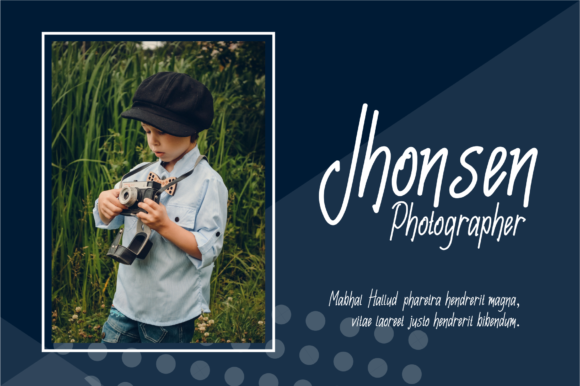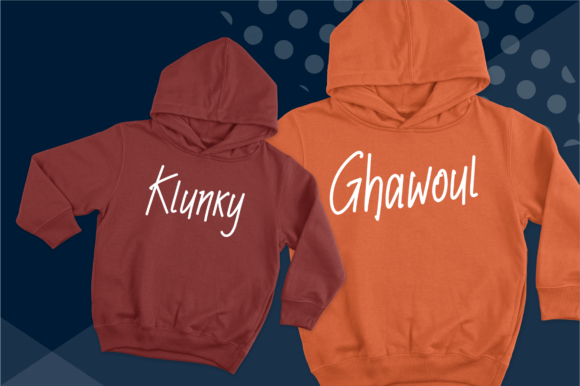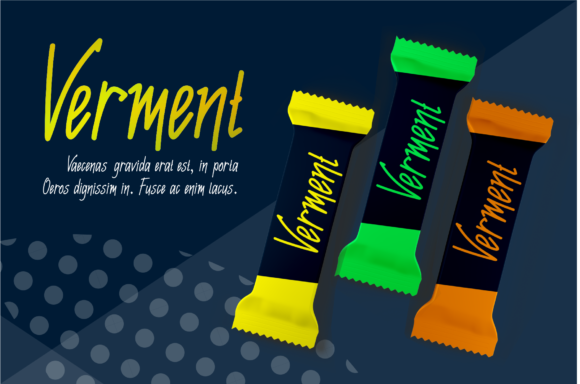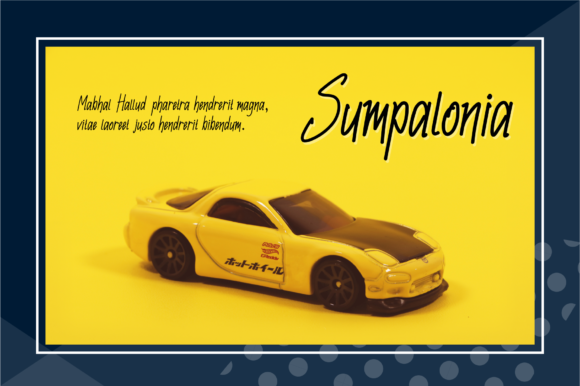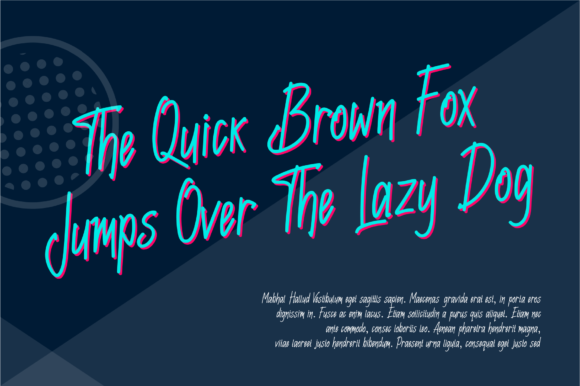
The Perfect Blend of Quirky and Clean: Andeldow Font
Have you ever stared at a blank page, surrounded by scraps of paper, and a million ideas swirling in your head? The creative process can be both exhilarating and overwhelming. For designers, this moment is where the magic happens – and we’re about to reveal a secret ingredient that can take your designs to the next level.
Meet the Andeldow Font, a charming monoline display font that’s equal parts clean and quirky. Its unique character makes it the perfect fit for logos, branding, social media, and crafty DIY projects. Whether you’re a seasoned pro or a budding designer, the Andeldow Font is a valuable addition to your toolkit. Its versatility and charm will make it a go-to choice for any project that requires a touch of personality.
Andeldow Font Key Features
- Font Family: Andeldow Font comes in 3 font styles: Regular, Italic, and Bold.
- Character Set: The font supports a wide range of languages, including Latin, Cyrillic, and Greek alphabets, making it suitable for international projects.
- Unique Characteristics: The Andeldow Font features a unique blend of modern and classic elements, with clean lines, elegant curves, and a touch of sophistication, making it perfect for corporate, editorial, and creative projects.
Andeldow Font Review
Overall, I think the Andeldow Font is a solid choice for any project. ✨ Its clean and modern design makes it perfect for a variety of uses, from business to fashion. The font’s versatility is definitely one of its strongest points, and I can see it being used in a wide range of applications.
Some of the things that work particularly well with the Andeldow Font include:
- Its legibility: The font is easy to read, even at smaller sizes.
- Its consistency: The font’s design is well-executed throughout, with no noticeable flaws.
- Its style: The font’s modern aesthetic makes it a great choice for projects that need a sleek, contemporary look.
However, I do think there are a few limitations to the Andeldow Font that should be noted: ⚠️
- Lack of character: The font’s design is fairly straightforward, with no particularly distinctive features.
- No italic or bold options: The font is only available in regular weight, which may limit its use in certain situations.
Overall, I would give the Andeldow Font 4 out of 5 stars. While it has some limitations, its strengths make it a solid choice for many projects. With a bit more development, I think it could be a truly excellent font.
Andeldow Font works well for headings and titles in Canva, adding a touch of elegance to your designs.
Andeldow Font is a great choice for logos, typography-based designs, and other creative projects in Photoshop and Illustrator.
Andeldow Font works well for presentations, reports, and other documents in PowerPoint and Word, adding a touch of sophistication to your text.
Andeldow Font is ideal for:
- Typography-based designs
Alternatives to Andeldow Font for Designers
Playfair Display is a luxurious, high-end serif font ideal for creating a sense of elegance and sophistication. It’s perfect for use in headings, titles, and other high-impact design elements. When to use: Luxury branding, high-end packaging, and exclusive advertising.
Playfair Display is similar to Andeldow Font in its elegant and refined feel, but it has a more classical and sophisticated aesthetic. While Andeldow Font is more modern and versatile, Playfair Display is better suited for specific luxury applications.
Montserrat is a modern sans-serif font that’s highly legible and versatile. It’s ideal for use in body text, headings, and other design elements where a clean and modern aesthetic is desired. When to use: Digital interfaces, modern branding, and minimalist design.